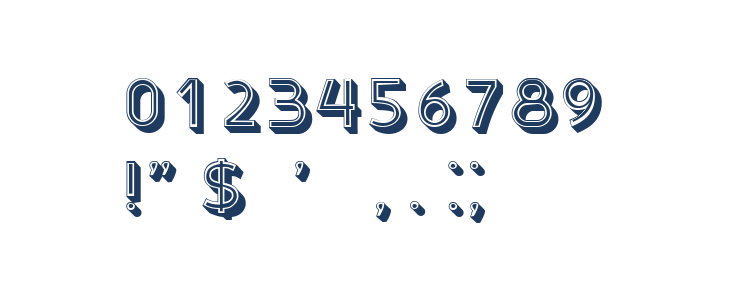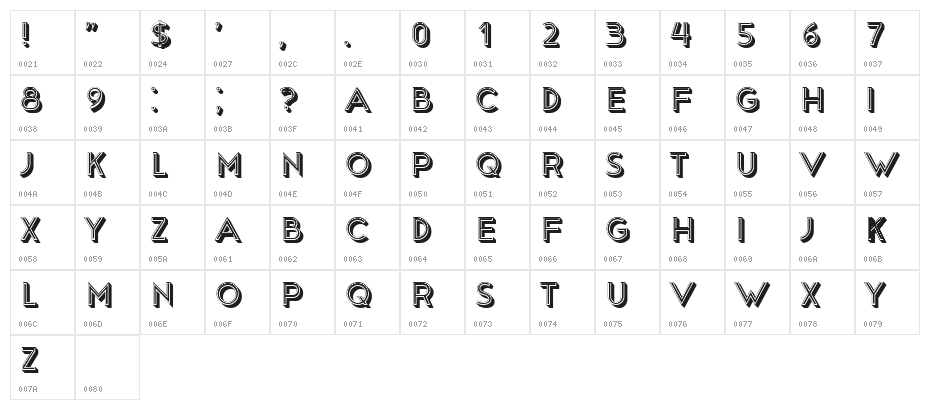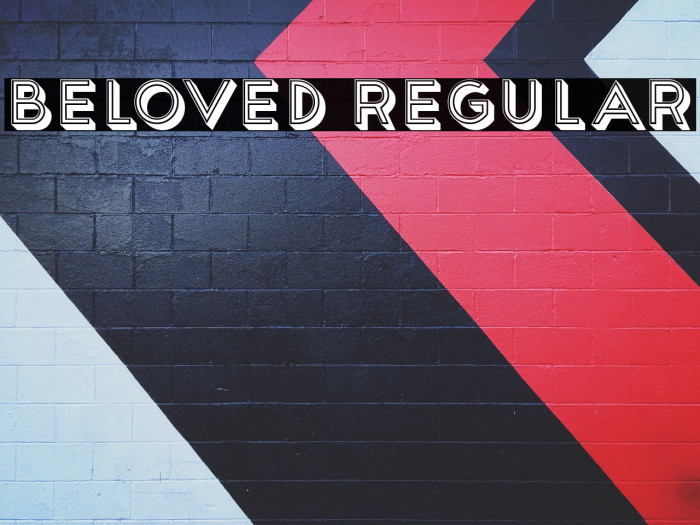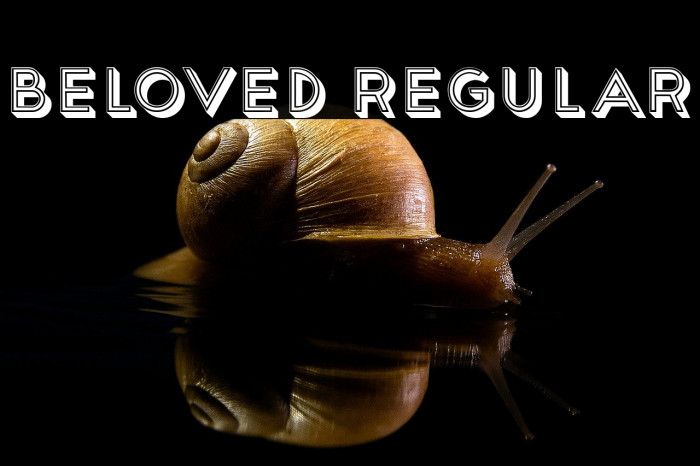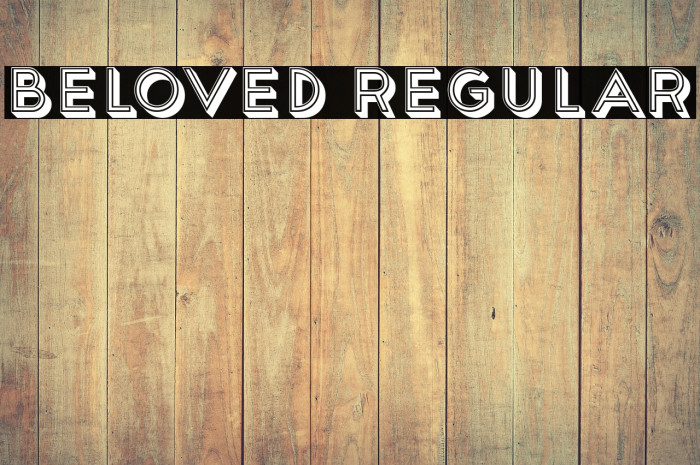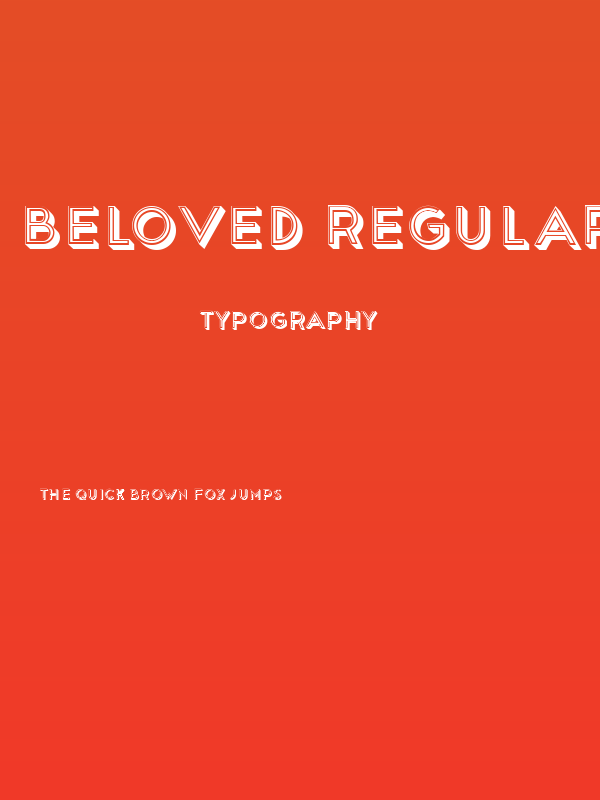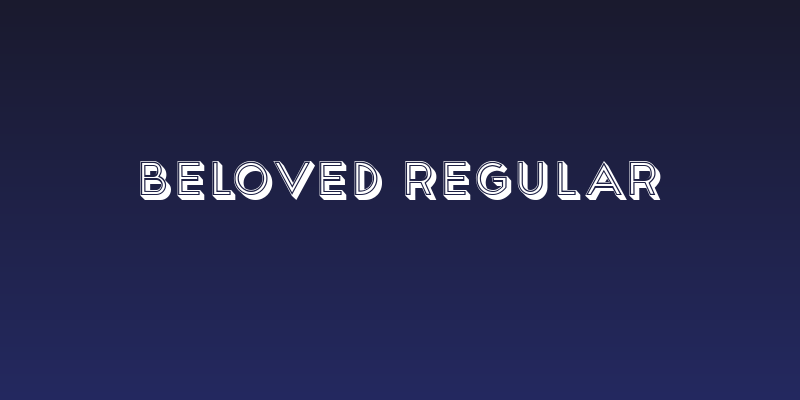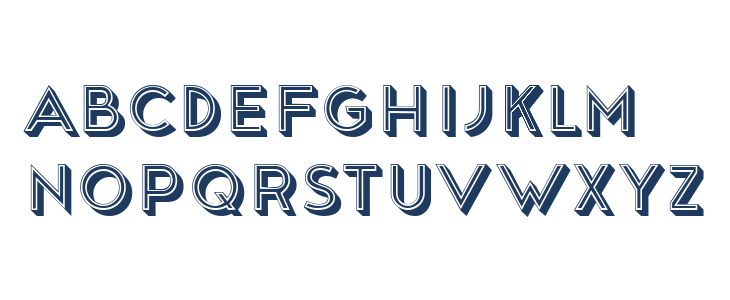
Beloved Regular Font
Beloved Regular Description
This font features a bold, three-dimensional appearance with a distinct shadow effect that gives it a striking, layered look. The characters are uppercase and have a geometric, blocky structure, which is enhanced by the shadowing that creates a sense of depth. The design is clean and modern, yet it carries a hint of vintage flair due to its dimensionality. The numerals and special characters follow the same stylistic approach, ensuring consistency across all glyphs. This font is ideal for making a bold statement in any design project.